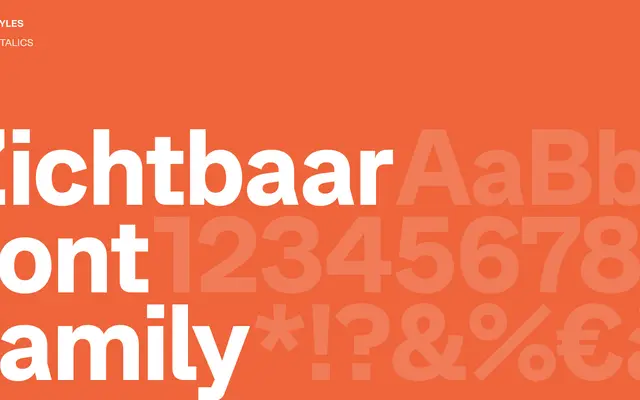
Zichtbaar
A typeface from Playtype whose page offers no substantive product information beyond filler copy.
The Zichtbaar page on Playtype's site provides no usable detail about the typeface's design, weights, or intended use. The name translates from Dutch as 'visible', which may signal an intent around legibility or presence in text. Without specification data, assessment of its full range and character is not possible.
Based on the Playtype catalogue context and the name 'Zichtbaar' (Dutch for 'visible'), this appears to be a serif typeface; subcategory inferred as transitional serif given Playtype's typical output, though page content is largely placeholder text with no direct classification information.